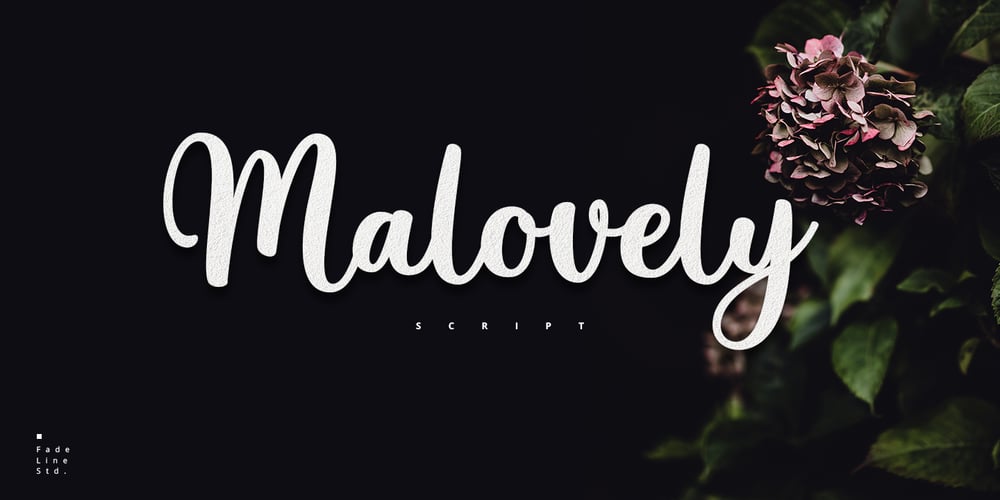
Malovely Script
Malovely Script font
Malovely Script Font Family was designed by Juni Fadil Putra and published by FadeLine Studio. Malovely Script contains 1 styles and family package options. Introduce Malovely Font!This is a beautiful script font made with love. This font comes in a bold, upright style. With this style you can create an attractive, cute, sweet and firm design. So that it will make your work even more fun!With a style like this, this font will be suitable in use for logo’s, branding projects, homeware designs, product packaging, mugs, quotes, posters, shopping bags, logo’s, t-shirts, book covers, name card, invitation cards, greeting cards, and all your other lovely projects.You can use this font for your job very easily. Because there are many features in it. Contains the complete set of lower and uppercase letters, punctuation, numbers, web fonts, and multilingual support. This font also includes several ligatures and alternative style Stylistic Set For those of you who have software that is capable of working OpenType (Corel Draw / Photoshop / Illustrator / InDesign).